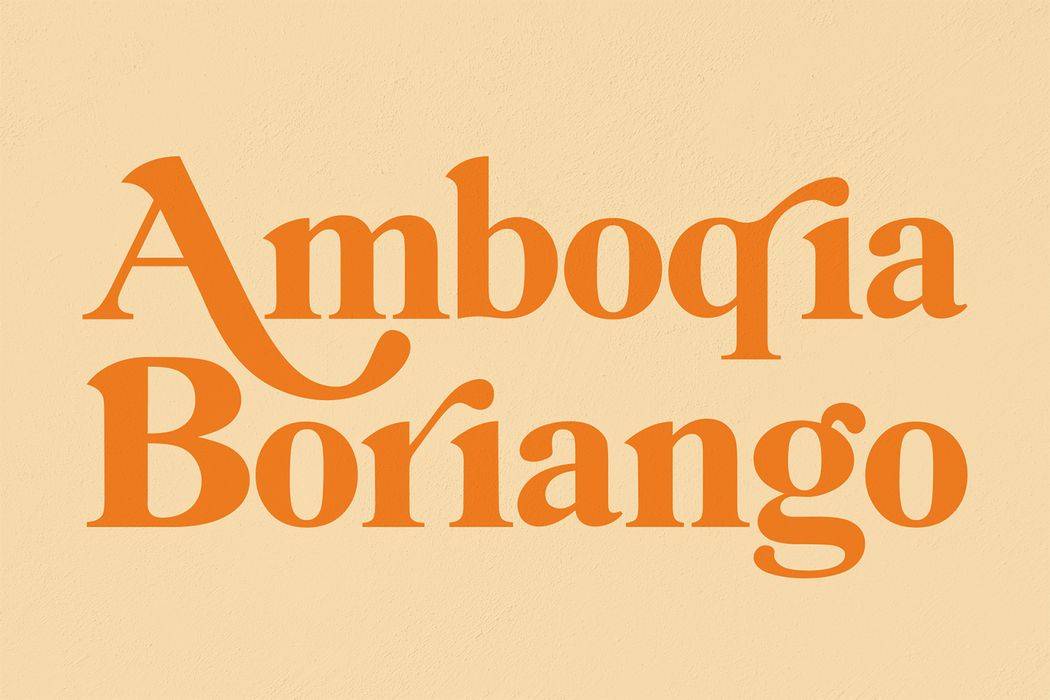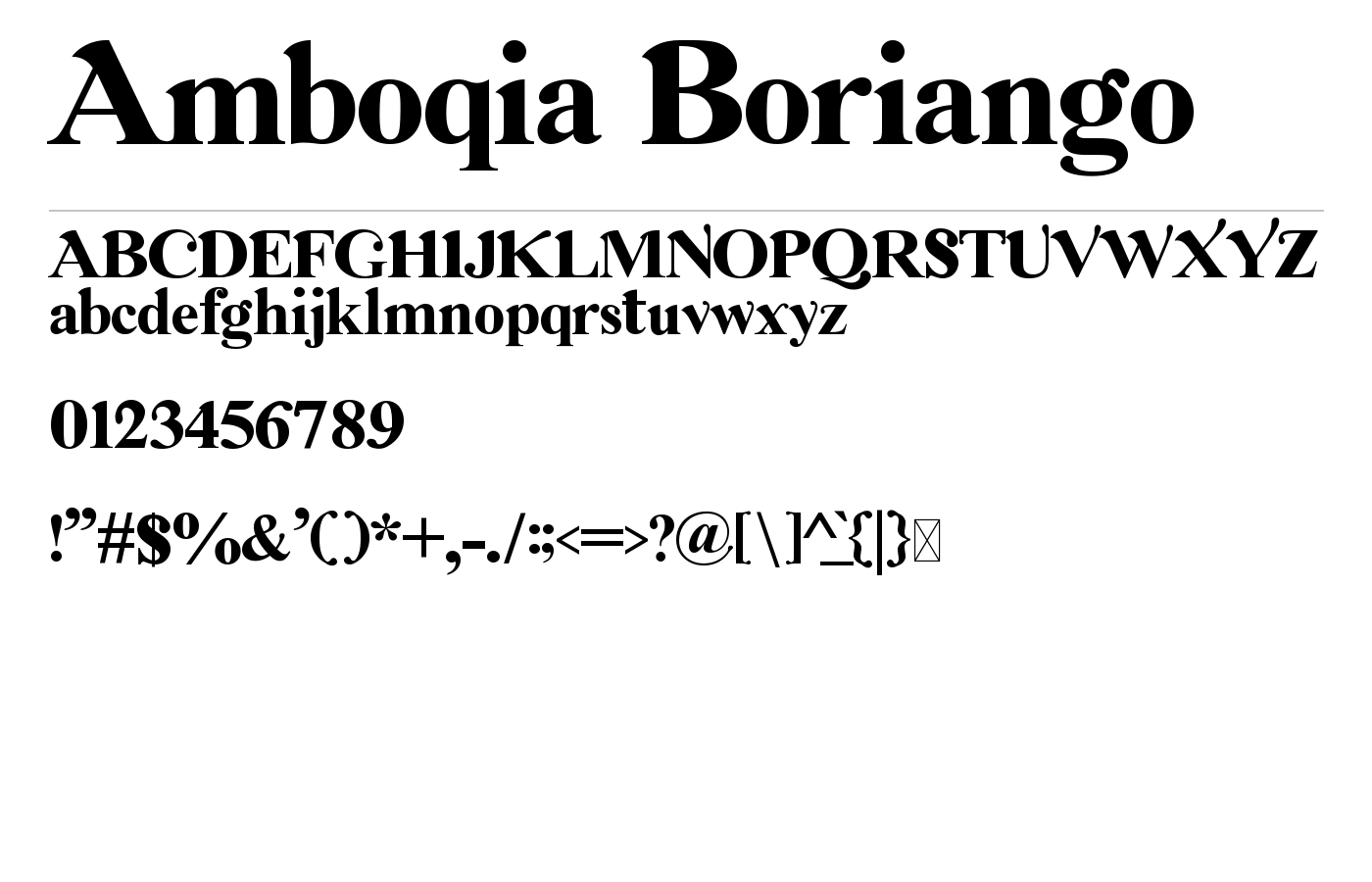
Amboqia Boriango is a bold serif font with a classic yet distinctive character, featuring high contrast between thick and thin strokes and sharp, bracketed serifs. Its elegant letterforms, including double-story a and g, along with slightly condensed proportions, give it a refined and traditional feel that works well for luxury branding, editorial headlines, and sophisticated packaging. This font balances readability with style, making it suitable for projects seeking a timeless, authoritative presence.
Amboqia Boriango Font
About Amboqia Boriango Font